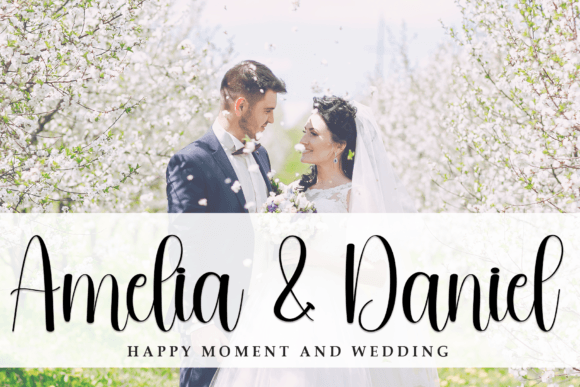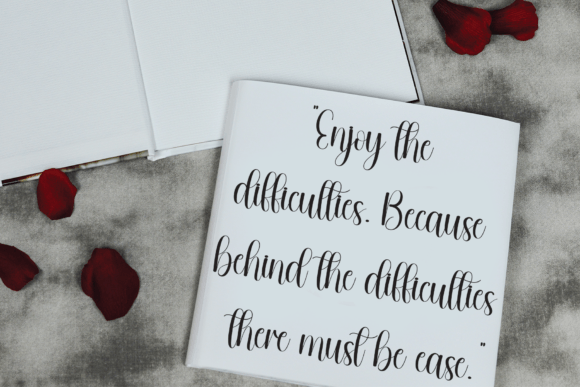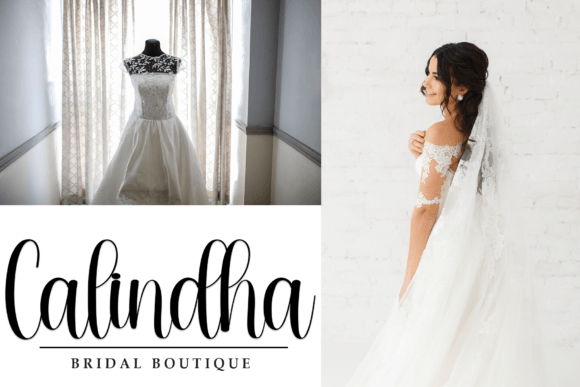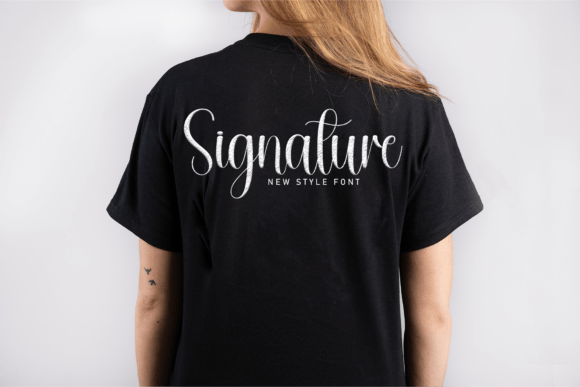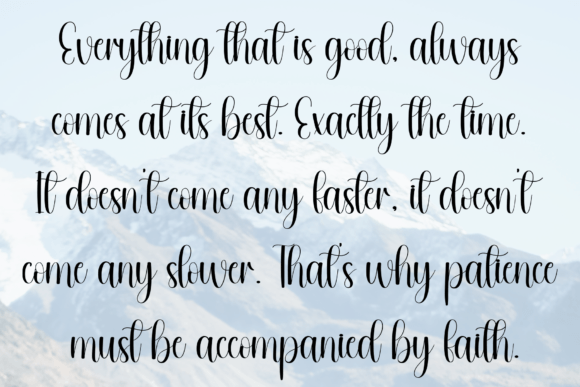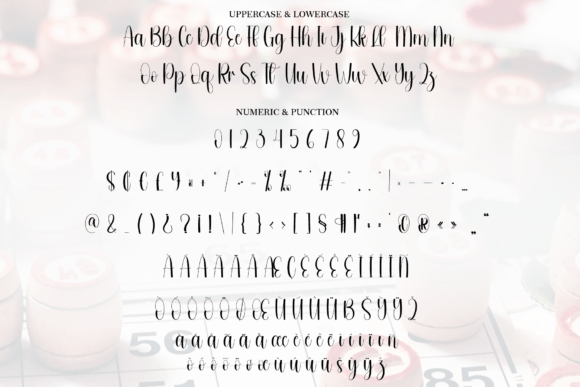
Bingo Font: The Sweet and Friendly Handwritten Font for Your Creative Projects
Are you looking for a font that can add a personal touch to your designs? Look no further than the Bingo Font! This sweet and friendly handwritten font is perfect for creating beautiful wedding invitations, cards, and other designs that require a lovely touch. In this article, we’ll explore the features and benefits of the Bingo Font, and how it can elevate your creative projects.
What is Bingo Font?
Bingo Font is a fresh and casual handwritten font that is designed to bring a touch of warmth and personality to your designs. Its sweet and friendly style makes it perfect for a variety of creative projects, from wedding invitations and cards to posters and social media graphics. The font is carefully crafted to create a sense of approachability and friendliness, making it ideal for designers and crafters who want to create designs that feel personal and relatable.
Key Features of Bingo Font
- Handwritten style: Bingo Font is a handwritten font that is designed to look like it was written with a pen. Its imperfections and irregularities give it a personal touch that makes it stand out from other fonts.
- Fresh and casual: The font has a fresh and casual feel that makes it perfect for designs that require a relaxed and informal tone.
- Easy to read: Despite its handwritten style, Bingo Font is easy to read and understand, making it perfect for designs that require a clear and concise message.
- Versatile: Bingo Font can be used for a variety of creative projects, from wedding invitations and cards to posters and social media graphics.
Benefits of Using Bingo Font
There are many benefits to using Bingo Font in your creative projects. Here are a few:
- Adds a personal touch: Bingo Font’s handwritten style and sweet and friendly tone make it perfect for adding a personal touch to your designs.
- Creates a sense of warmth: The font’s fresh and casual style creates a sense of warmth and approachability, making it perfect for designs that require a friendly tone.
- Unique and creative: Bingo Font is a unique and creative font that can help your designs stand out from the crowd.
- Experiment with different sizes and colors: Bingo Font looks great in a variety of sizes and colors, so don’t be afraid to experiment and find the perfect combination for your design.
Bingo Font is perfect for designers and crafters who want to create beautiful and unique designs. Here are a few ways you can use Bingo Font:
- Wedding invitations: Bingo Font is perfect for creating beautiful and personalized wedding invitations.
- Cards: The font is also great for creating handmade cards for special occasions.
- Posters and social media graphics: Bingo Font can be used to create eye-catching posters and social media graphics that require a friendly and approachable tone.
In conclusion, Bingo Font is a sweet and friendly handwritten font that is perfect for designers and crafters who want to add a personal touch to their designs. Its fresh and casual style makes it ideal for a variety of creative projects, from wedding invitations and cards to posters and social media graphics. With its ease of use and versatility, Bingo Font is a must-have font for any designer or crafter looking to create beautiful and unique designs.